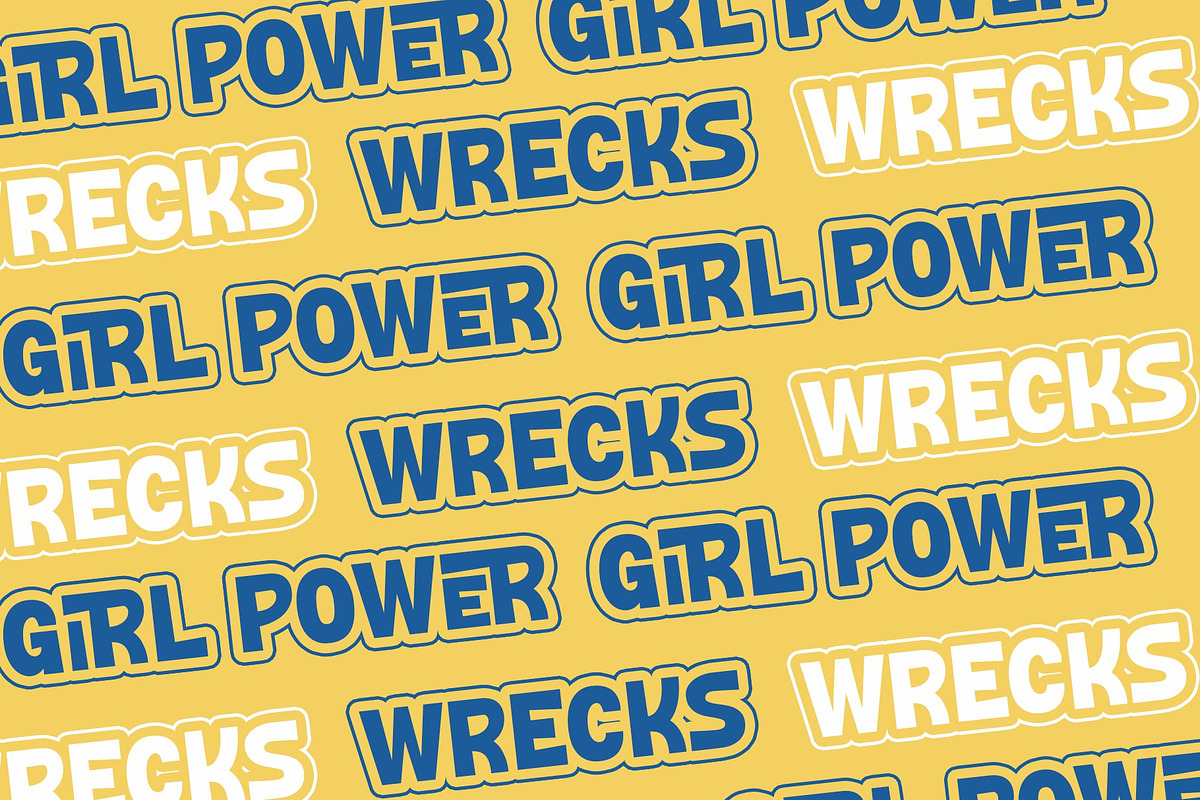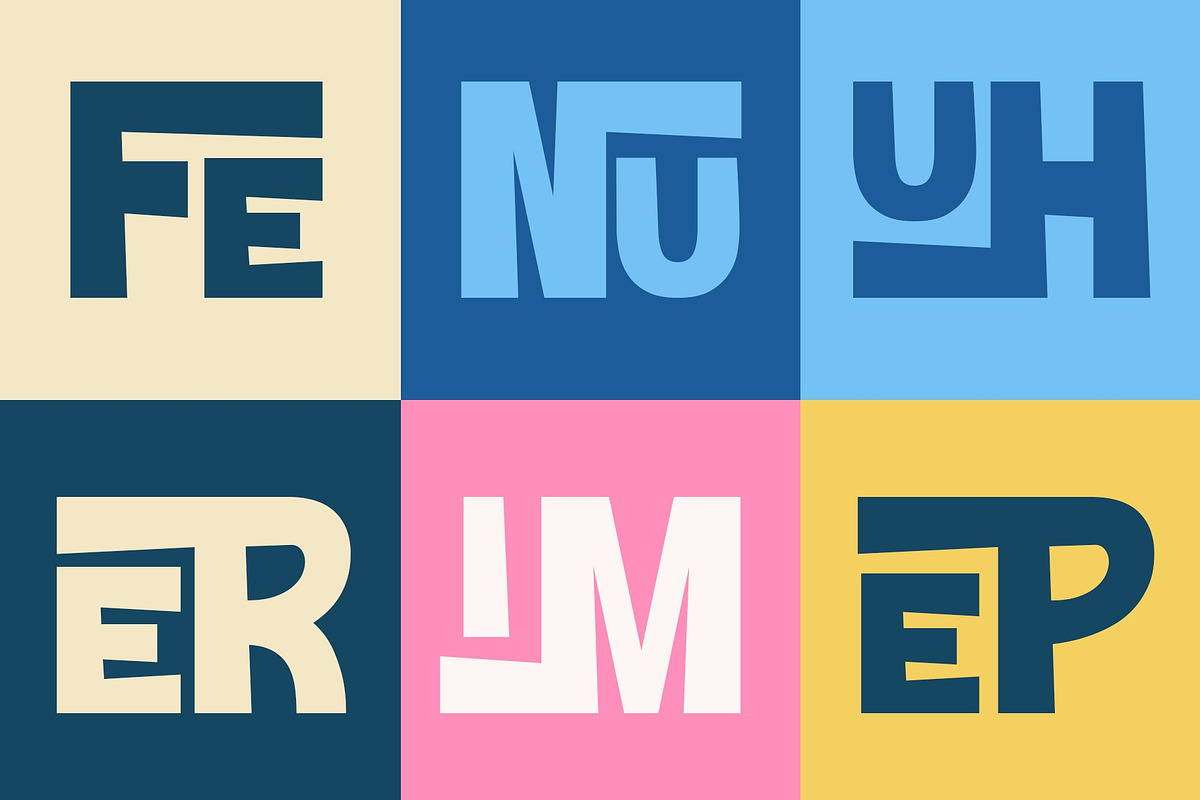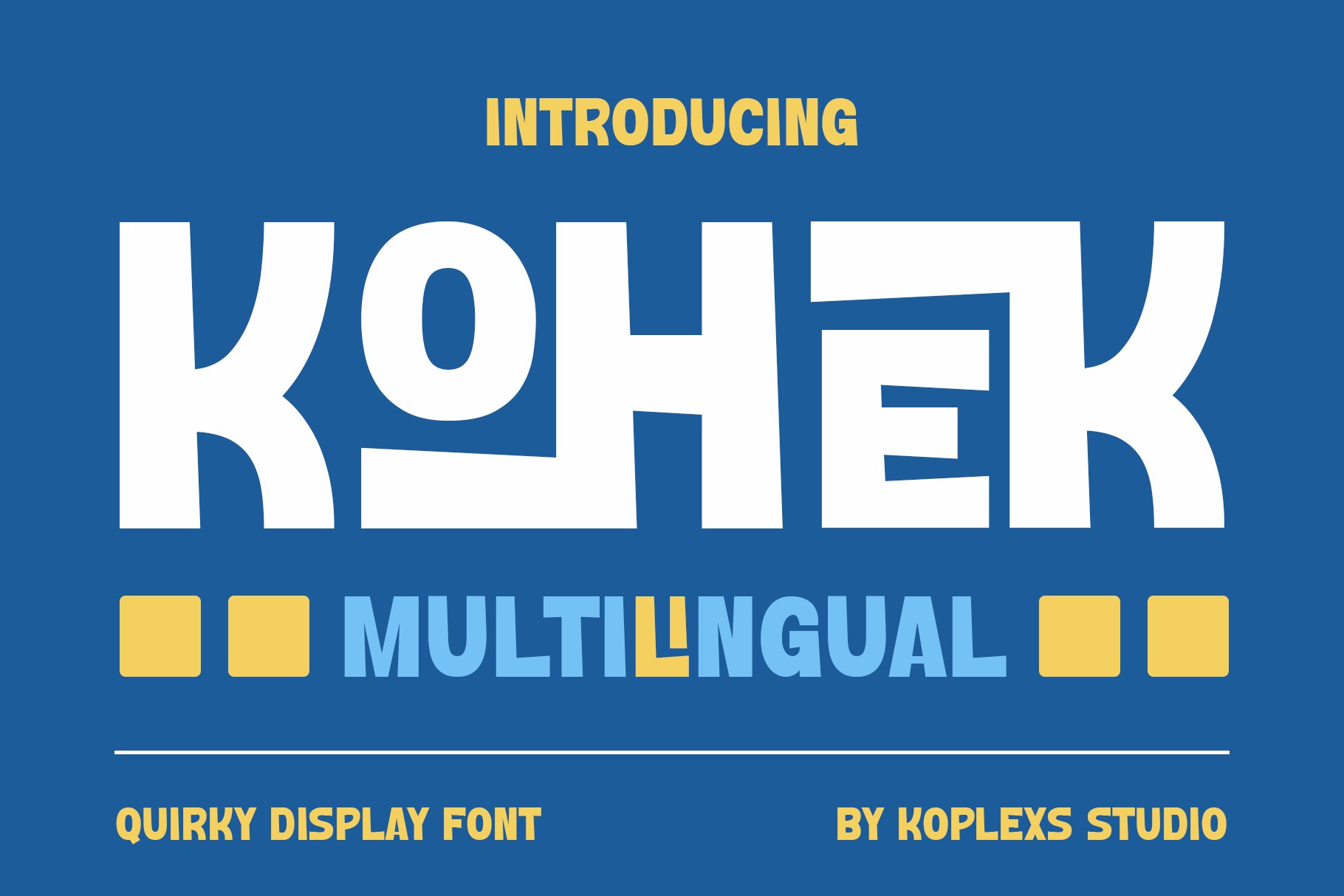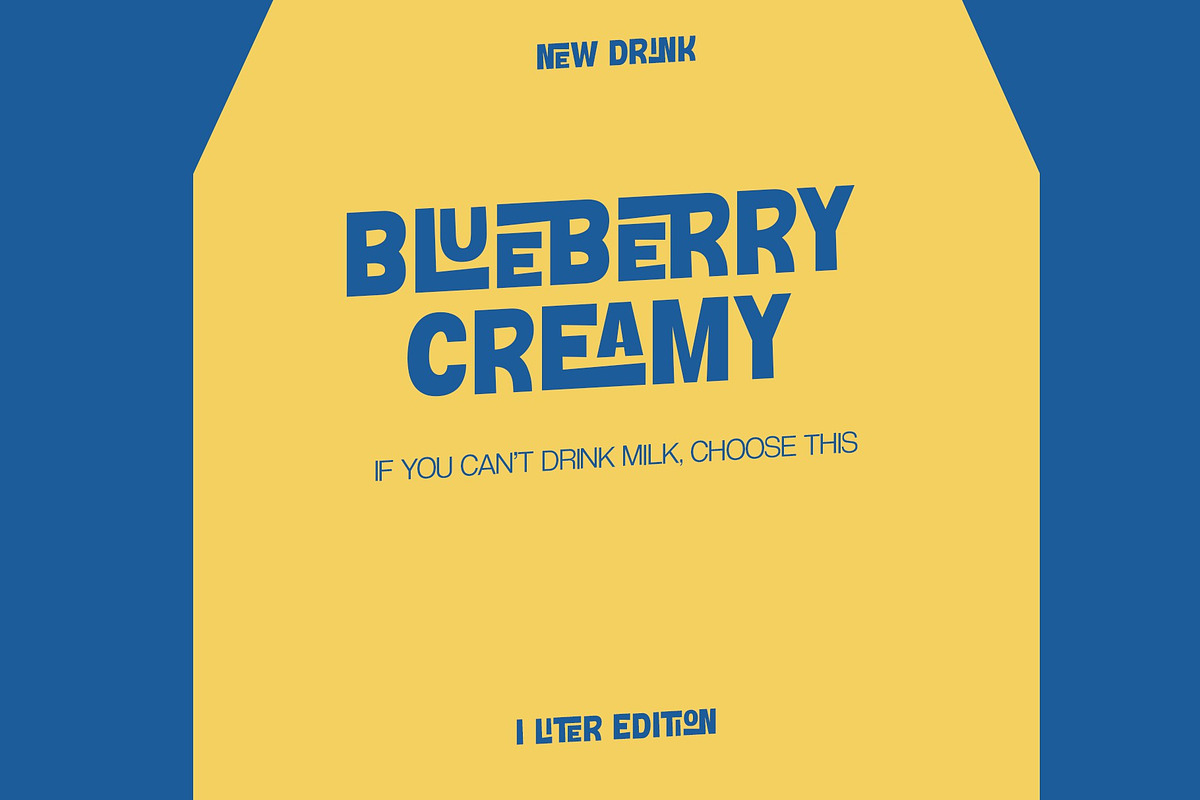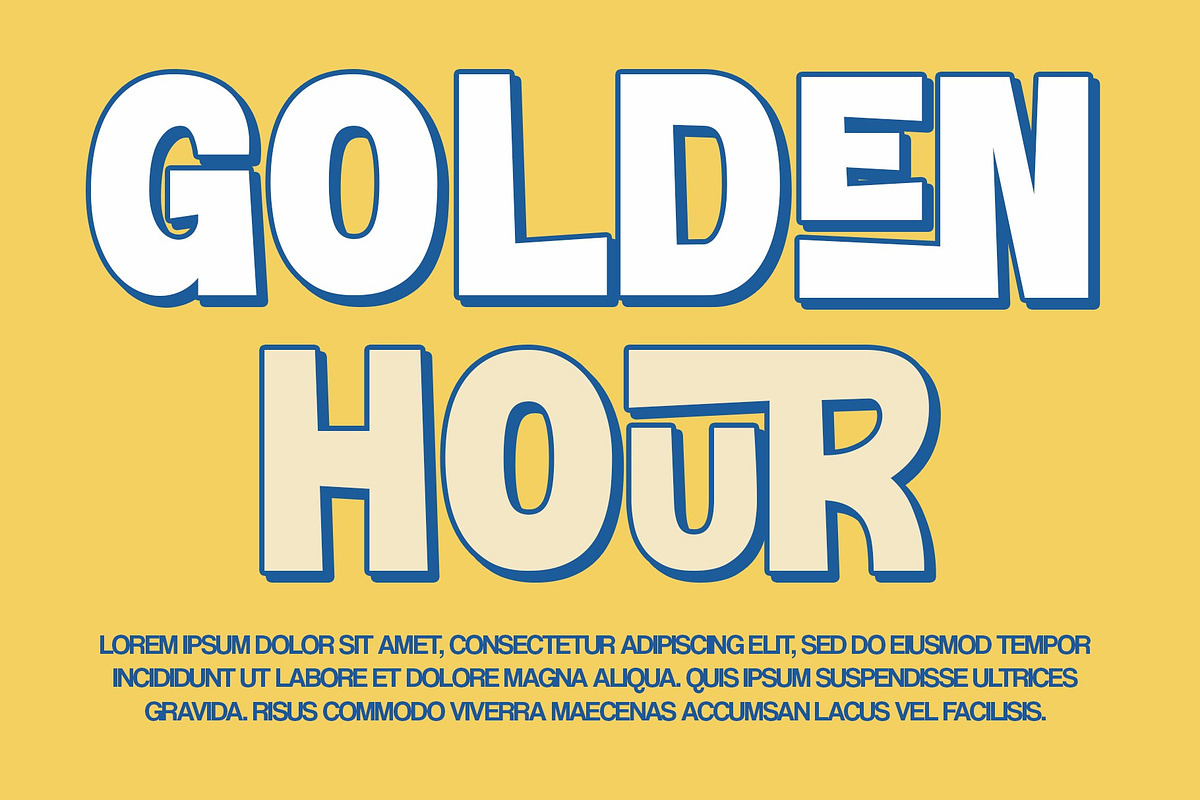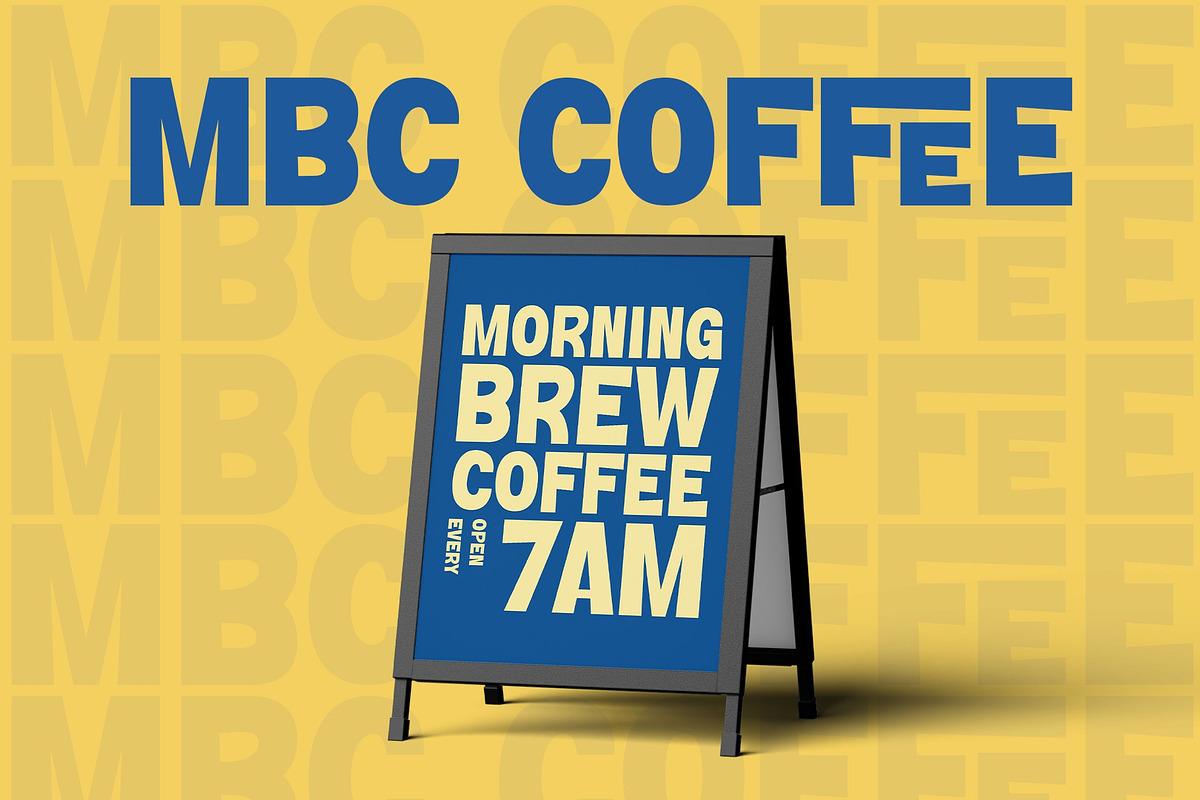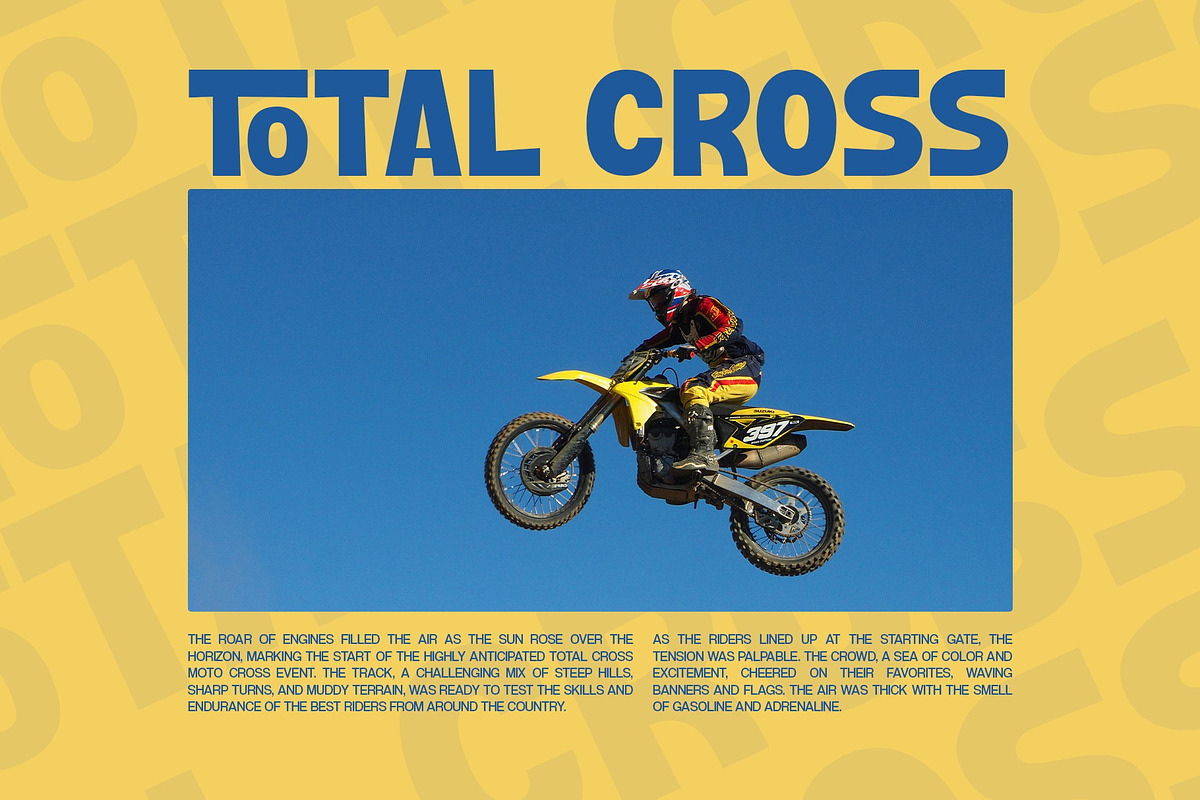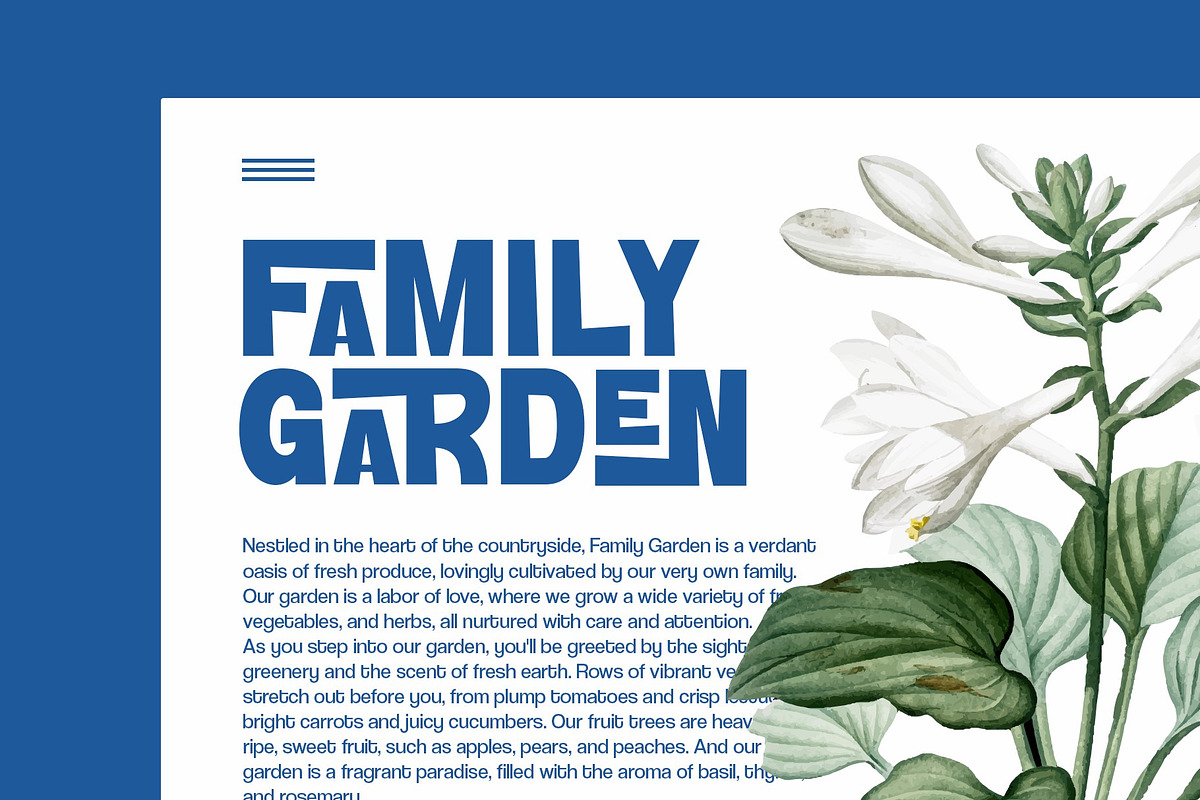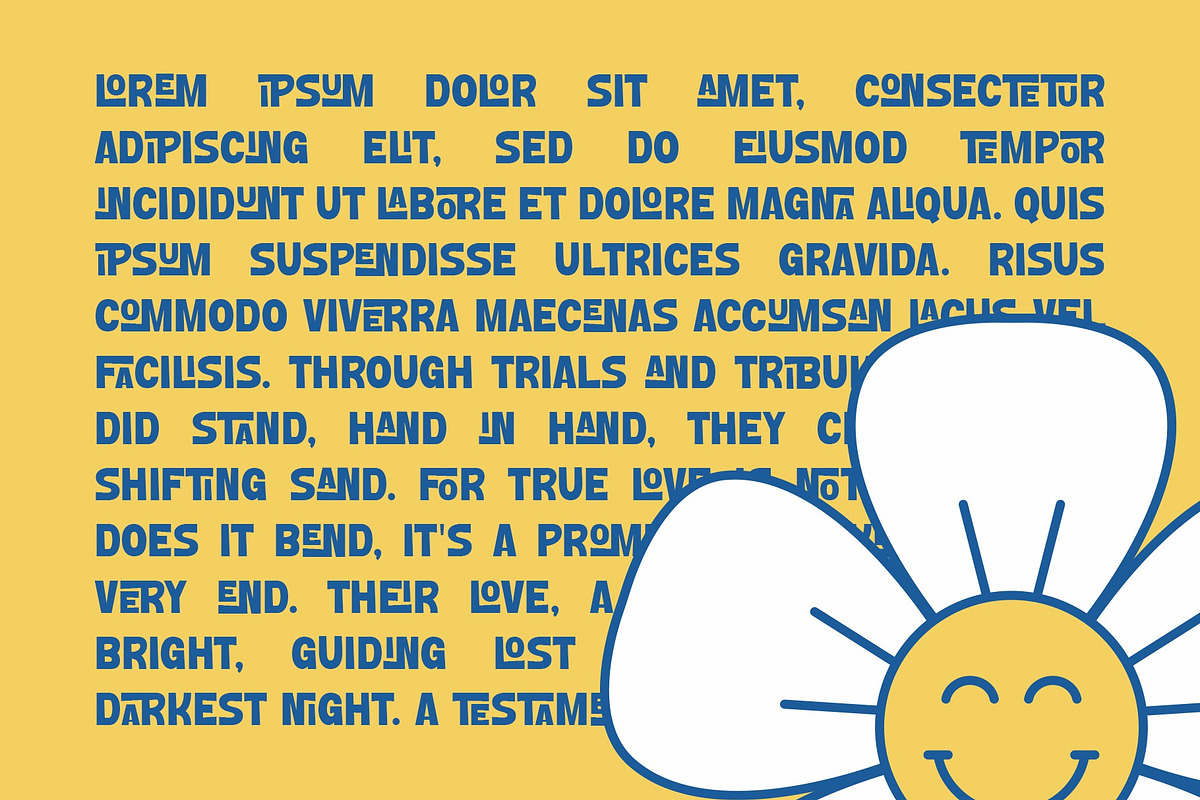
KOHEK - Quirky Display Font
KOHEK is a quirky and playful display font that is perfect for adding a touch of personality to your designs. With its unique and eye-catching characters, KOHEK is sure to make your headlines, logos, and social media posts stand out from the crowd.
- Alternate characters: KOHEK includes a variety of alternate characters for each letter, giving you even more creative possibilities.
- Ligatures: KOHEK also includes a number of ligatures, which are special combinations of characters that are connected together to create a smoother and more flowing appearance.
- Supports multiple languages: KOHEK supports a wide range of languages.
Use cases:
- Headlines: KOHEK is a great choice for headlines that you want to make a big impact.
- Logos: KOHEK can be used to create unique and memorable logos.
- Social media posts: KOHEK can help your social media posts stand out from the crowd.
- Display posters: KOHEK is perfect for creating eye-catching display posters.
- Product packaging: KOHEK can be used to create unique and eye-catching product packaging.